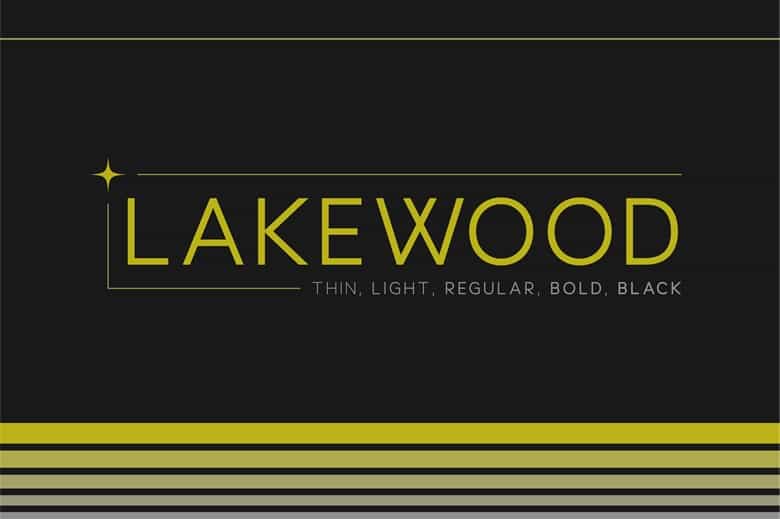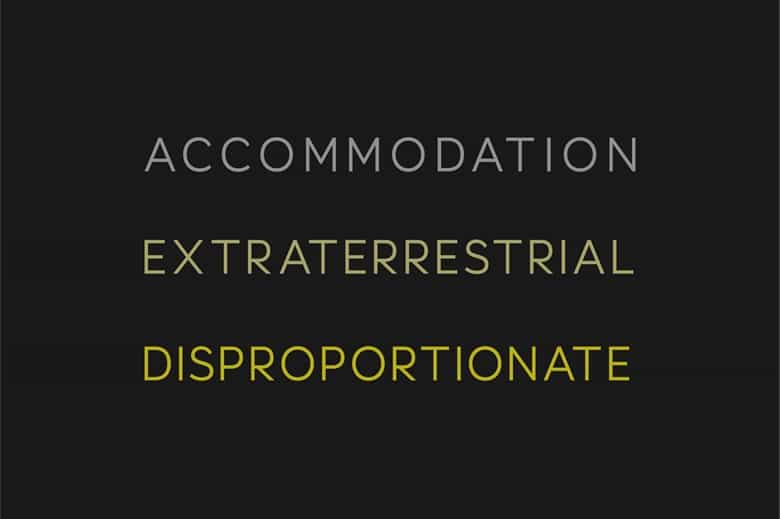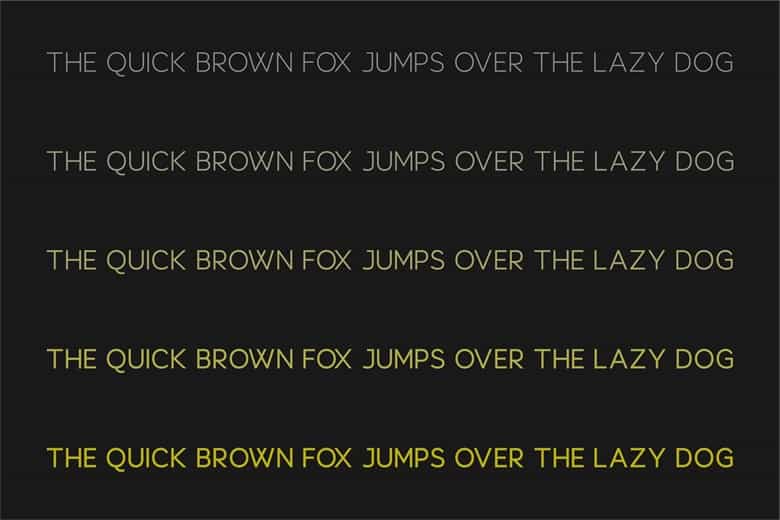
Lakewood is a well rounded sans serif font family that is incredibly sophisticated and breaks the mold of current design trends. With 5 different styles, it provides an incredible level of flexibility, easily suitable for use in everything from magazines and logos to film posters and more.